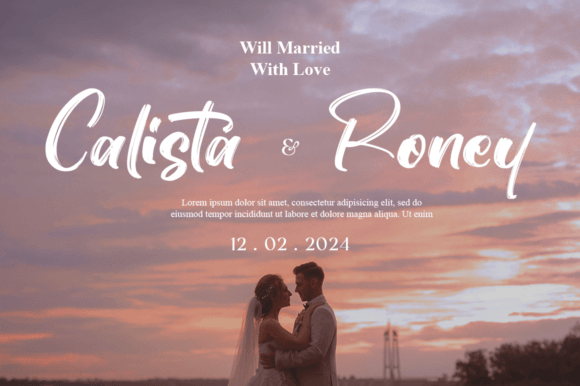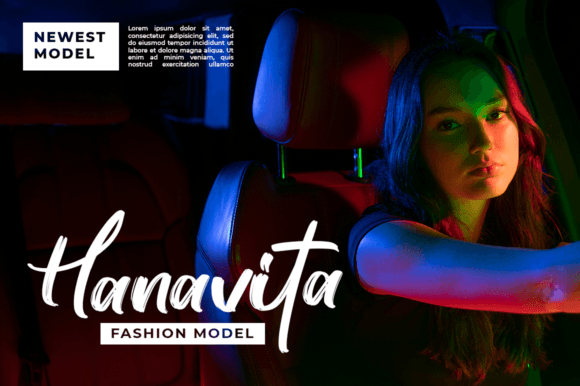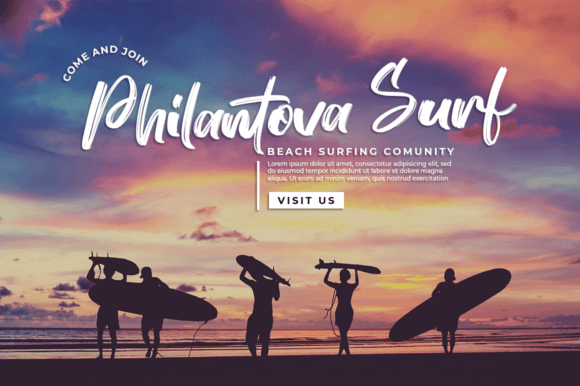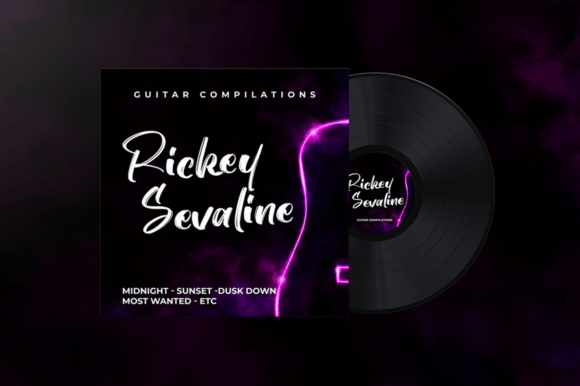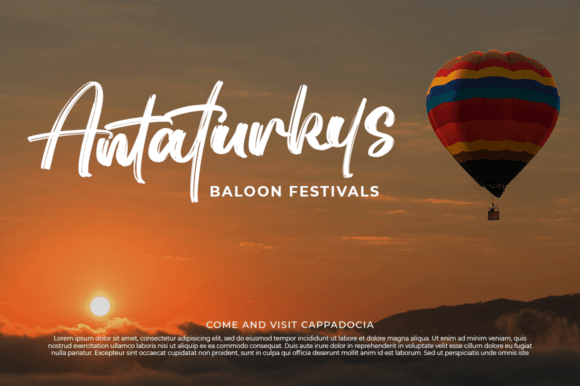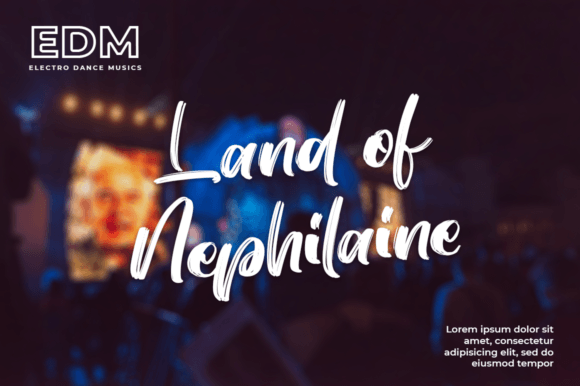
Gamotrella Font: Elevate Your Designs with a Natural Handwritten Brush Font
Are you looking for a font that can add a personal touch to your designs? Look no further than Gamotrella, a beautiful natural handwritten brush font. With its unique and elegant style, Gamotrella is ideal for a wide range of creative projects, from branding and wedding invitations to book covers and marketing materials.
What is Gamotrella Font?
Gamotrella is a carefully crafted handwritten brush font that mimics the look and feel of natural handwriting. Its flowing strokes and subtle imperfections give it a charming, organic feel that’s perfect for designers and crafters who want to add a personal touch to their work.
Key Features of Gamotrella Font
- Natural Handwritten Style: Gamotrella’s handwritten style is designed to look like it was written with a brush, giving it a unique and authentic feel.
- Elegant and Versatile: With its elegant lines and flowing strokes, Gamotrella is versatile enough to be used in a wide range of creative projects.
- Perfect for Branding: Gamotrella’s unique style makes it an excellent choice for branding projects, such as logos, business cards, and letterheads.
- Wedding Invitations and More: Gamotrella’s romantic and whimsical feel makes it perfect for wedding invitations, save-the-date cards, and other special occasion designs.
Uses for Gamotrella Font
Gamotrella’s versatility makes it suitable for a wide range of creative projects, including:
- Branding and Marketing: Use Gamotrella to create unique and memorable logos, business cards, and marketing materials.
- Wedding Invitations and Stationery: Add a personal touch to your wedding invitations, save-the-date cards, and other special occasion designs.
- Book Covers and Publishing: Use Gamotrella to create eye-catching book covers, title pages, and other publishing materials.
- Crafting and DIY Projects: Gamotrella is perfect for crafters who want to add a personal touch to their DIY projects, such as handmade cards, gift tags, and scrapbooking.
Why Choose Gamotrella Font?
With so many fonts to choose from, why should you choose Gamotrella? Here are just a few reasons:
- Unique and Authentic Style: Gamotrella’s handwritten brush style is unlike any other font on the market.
- Elegant and Versatile: Gamotrella’s elegant lines and flowing strokes make it versatile enough to be used in a wide range of creative projects.
- Easy to Read and Use: Despite its unique style, Gamotrella is easy to read and use, making it perfect for designers and crafters of all skill levels.
If you’re looking for a font that can add a personal touch to your designs, look no further than Gamotrella. With its natural handwritten brush style, elegant lines, and versatile uses, Gamotrella is the perfect choice for designers and crafters who want to elevate their work. Whether you’re creating branding materials, wedding invitations, book covers, or DIY projects, Gamotrella is sure to make your designs stand out.